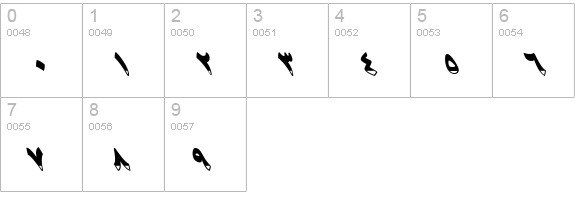
B Sahar Font Details
B Sahar font is a modern and elegant typeface that exudes sophistication and style. With its sleek lines and unique letterforms, this font is perfect for a wide range of design projects, from branding to editorial design. The clean and minimalistic aesthetic of B Sahar font makes it versatile and suitable for both headings and body text. What makes B Sahar font even more desirable is that it is available for free download at FontsMarket.com. This means that you can easily access and use this beautiful font in your projects without any cost. Whether you are a graphic designer, web developer, or just someone who appreciates good typography, B Sahar font is a must-have in your font collection. Don't miss out on the opportunity to enhance your designs with this amazing font – download B Sahar for free today!